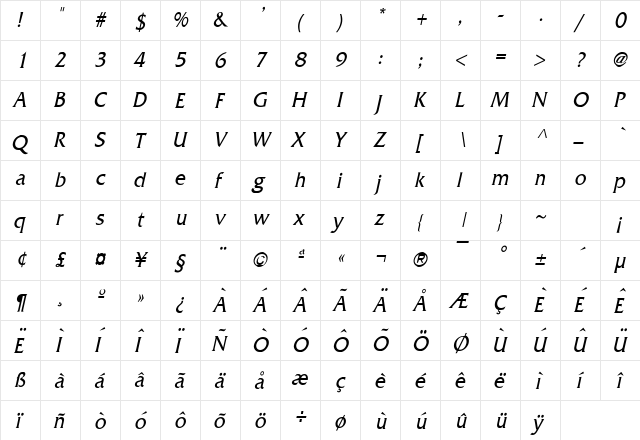
Franco Condensed Italic Font Preview
Design Context for Franco Condensed Typeface
Franco Condensed takes a measured approach to typography — its balanced proportions and neutral character make it a reliable workhorse for both digital and print work. Its italic angle brings a sense of urgency and motion to the letterforms. Its narrow stance lets it pack a punch even in space-constrained designs.
Pro Tip: Use Franco Condensed for emphasis, pull quotes, and subheadings where its slanted energy can add rhythm to the layout.